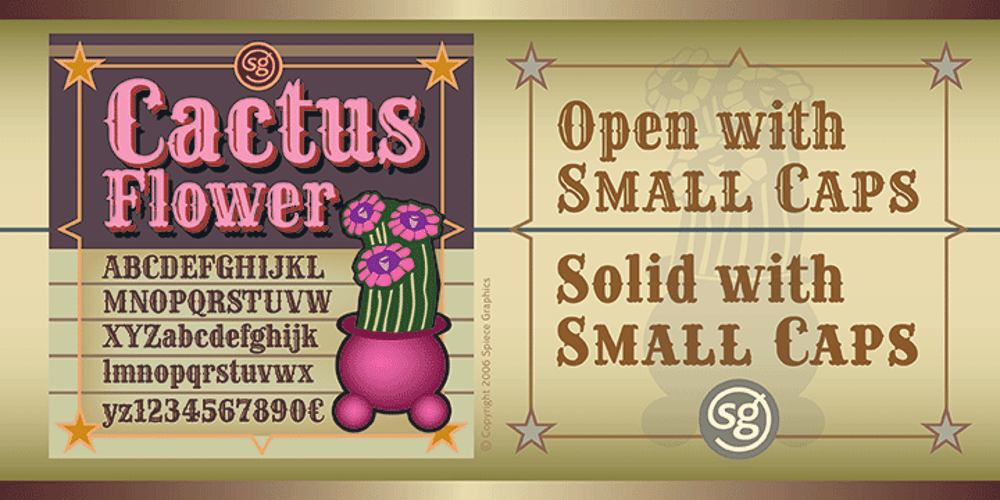
Cactus Flower SG Font Family was designed by Ross F. George, Jim Spiece and published by Spiece Graphics. Cactus Flower SG contains 2 styles and family package options. Cactus majestically blooming in the desert is truly a wondrous event! As the landscape cools, nature blossoms into a beautiful rainbow of colors. These same harmonies and contours, plus a dash of ruggedness and legibility, help to make Cactus Flower Open a superb choice for display work. This cowboy boot style is an old Speedball favorite originated by lettering artist Ross F. George. It’s especially useful for creating distinctive headlines and titles where a Tuscan look is desired. The engraved appearance of the open style adds a delightful touch to this Old West typeface. A solid version is also available. You will find small caps, petite figures, and various alternates included for your convenience. Cactus Flower Open is also available in the OpenType format. Some new characters have been added to this OpenType version including stylistic alternates, discretionary f-ligatures, and initials. These advanced features work in current versions of Adobe Creative Suite InDesign, Creative Suite Illustrator, and Quark XPress. Check for OpenType advanced feature support in other applications as it gradually becomes available with upgrades.